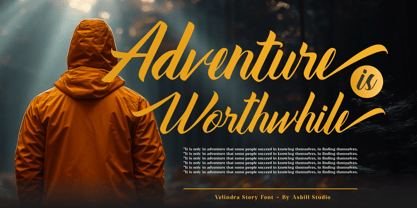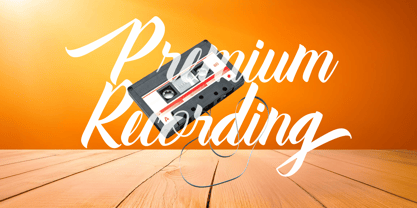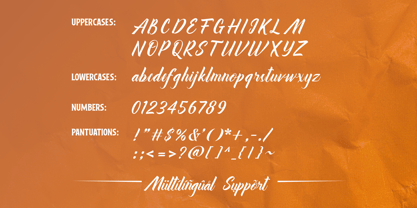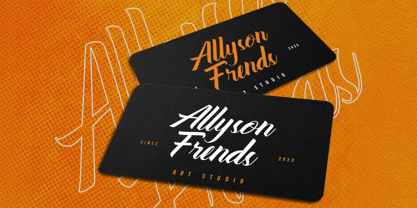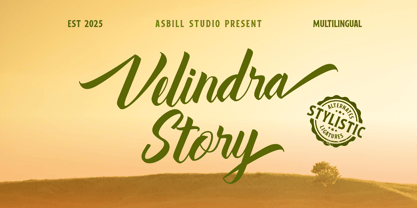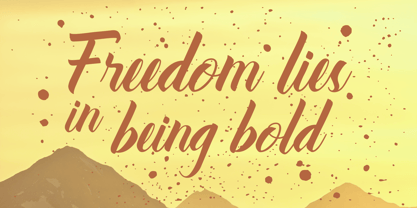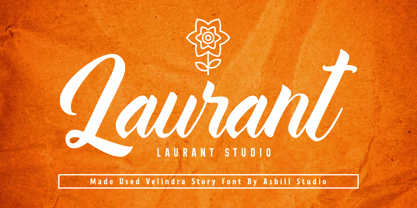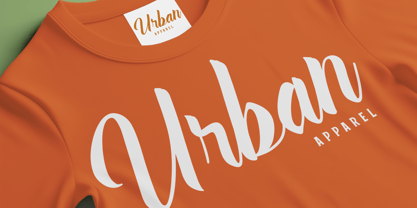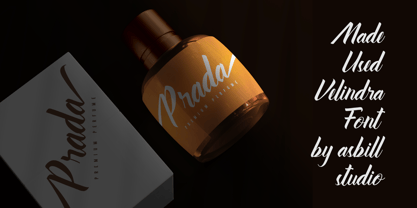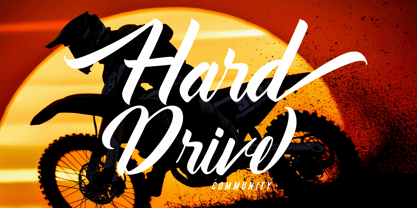
Velindra Story
par Asbill Studio
La famille de polices Velindra Story a été conçue par Ricky Ali et publiée par Asbill Studio. Velindra Story contient 1 styles. En savoir plus sur cette famille
Velindra is a beautifully crafted script font designed to bring elegance and sophistication to your projects. Featuring smooth curves, refined strokes, and a perfect balance between bold and delicate lines, this typeface exudes both grace and confidence.
Ideal for branding, invitations, logos, packaging, quotes, and editorial designs, this font will add a touch of luxury and personality to any layout. Its fluid motion and distinctive details make it stand out while maintaining readability and charm.